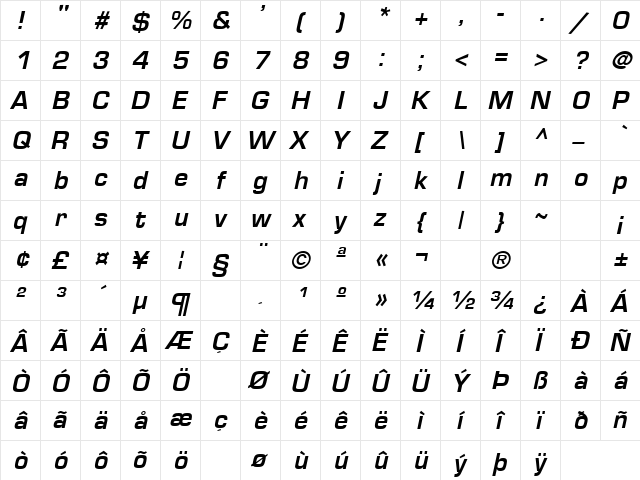
Green Mountain 16 Bold Italic Font Preview
Green Mountain 16 Bold Italic
Green Mountain 16 Bold Italic Font Details
Design Context for Green Mountain 16 Typeface
Green Mountain 16 offers clean, dependable letterforms without strong stylistic allegiance, making it a practical choice for designers who need flexibility. The slanted form adds forward momentum and visual energy. The heavy weight commands attention and anchors typographic hierarchies.
Pro Tip: Try Green Mountain 16 for annotation and caption copy alongside an upright companion — the contrast in angle creates a dynamic but ordered typographic system.